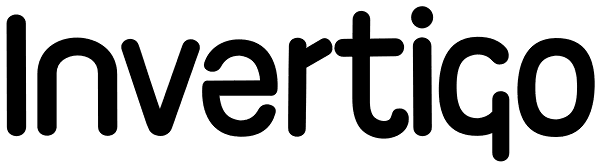
Invertigo
Invertigo is an experimental font mainly for designers who love to play with type as you will see in my examples. There are many alternate letters for you to work with, and I will be creating new characters which I will add to Invertigo from time to...